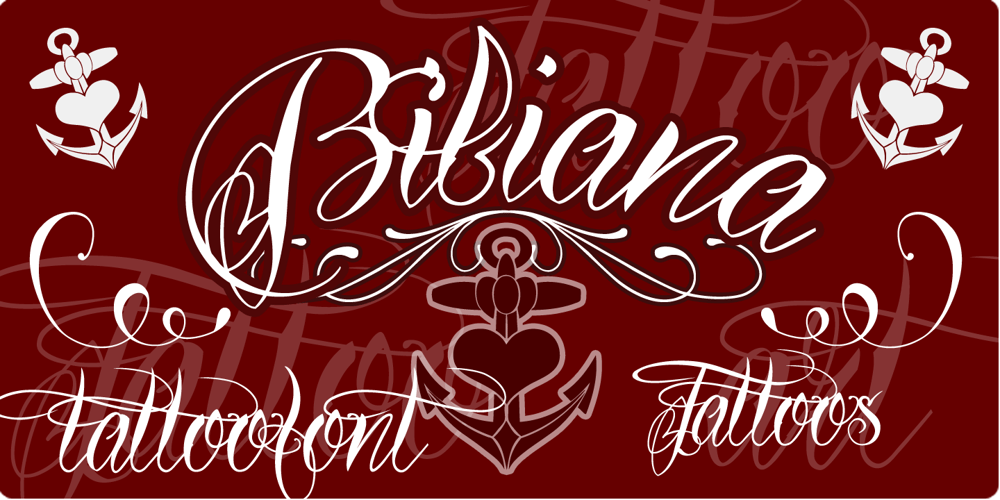
Bibiana Font Family was designed by published by Otto Maurer. Bibiana contains 2 styles and family package options. Swashy Newstyle Tattoo-Font Gangsterstyle. Bibiana is the Sisterfont to Tinka Babe Tattoofont. Bibiana is best for Tattoart like Tattooflash.Bibiana Tattoofont comes with many OpenType Features. Alternate Ends Alternate Caps Ligatures Extra swashes